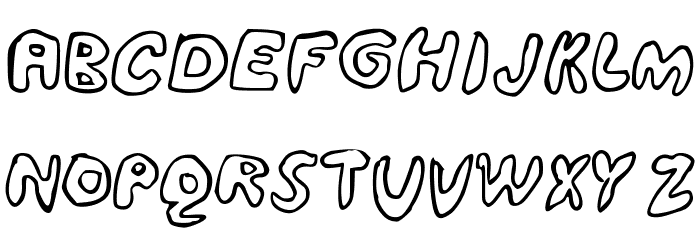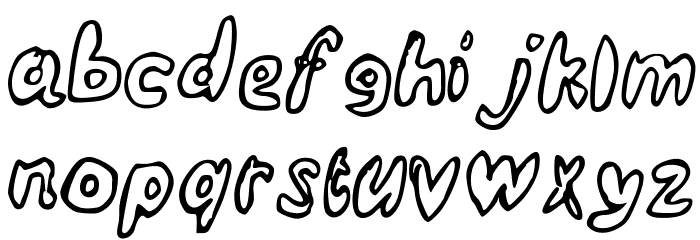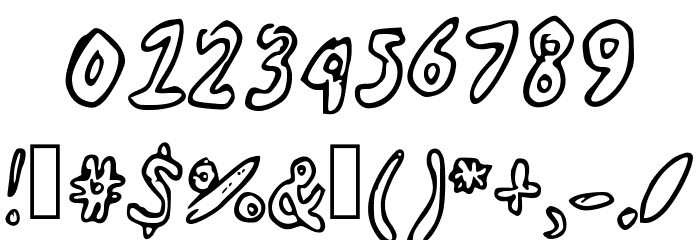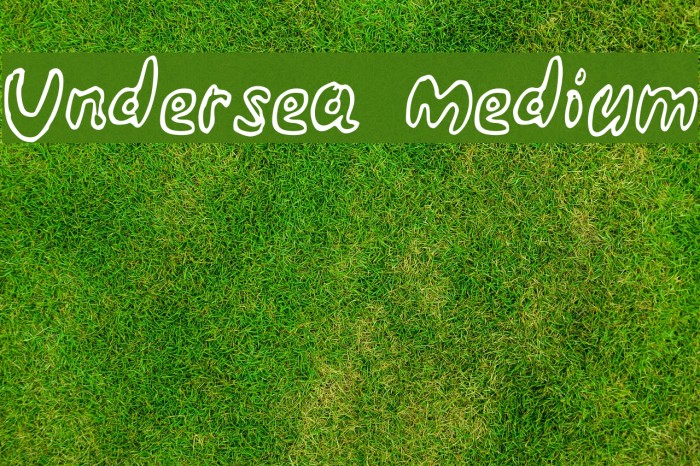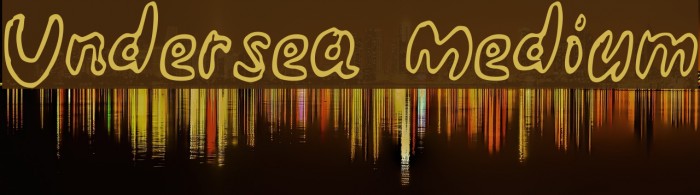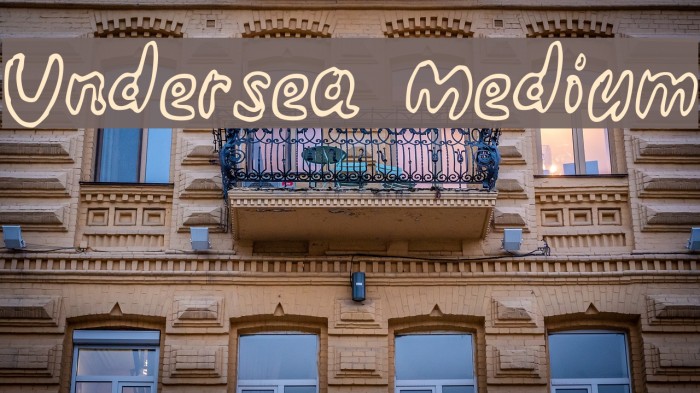
Undersea Medium Font
This playful and whimsical font features bold, rounded characters with a hand-drawn aesthetic. Each letter is outlined, giving it a three-dimensional appearance that adds depth and character. The strokes are uneven, contributing to a casual and informal style. The font maintains a consistent thickness throughout, with a medium contrast between the strokes and the spaces within the letters. The overall look is reminiscent of doodles or comic book lettering, making it ideal for projects that require a fun and engaging visual element.
A playful, hand-drawn font with bold, outlined characters and a whimsical style.
- Proposed Projects: Ideal for children's books, comic strips, playful branding, and creative posters.
- Overall Style: Whimsical, Playful